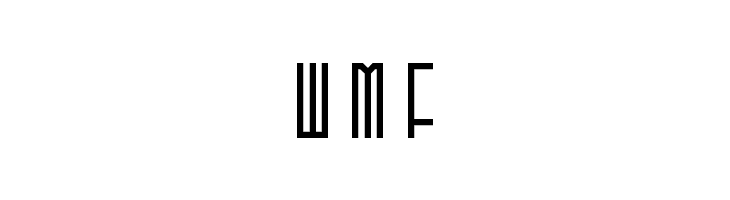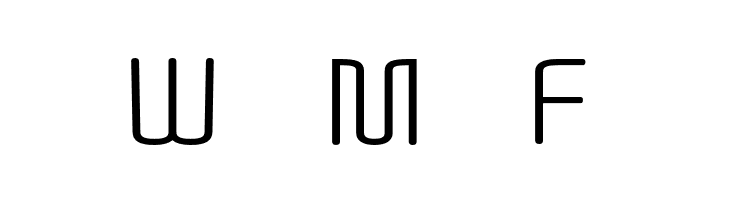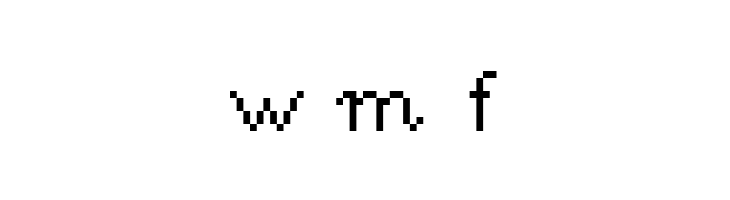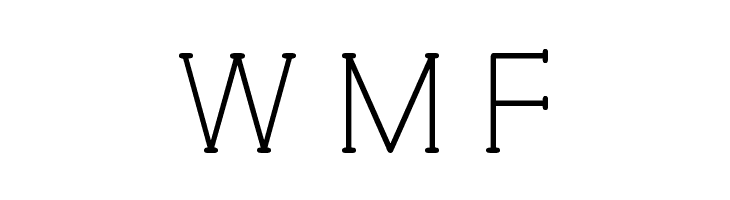
( Luc Mahler )
A modern, monospaced font with a sleek, minimalistic design.
( NewMoleFont )
A pixelated, monospaced font with a retro digital style.
( Pierre-Henri Ramboz - matoilnet.com )
A modern, rounded font with a geometric and monospaced appearance.
( PutraCetol Studio - Putra Novembria Candra Kusuma - creativemarket.com/putracetol )
A geometric, monospaced font with a modern, digital look.
( Qkila - Quentin Aquila - www.creativefabrica.com/designer/qkila/ )
A geometric, monospaced font with rounded edges and consistent line thickness.
( Regina Quesada - reginaqr.blogspot.com )
A geometric, monospaced font with clean lines and uniform character width.
( Ryan Williamson )
A modern, geometric font with a clean, monospaced appearance.
( RynnieJinYeon )
A pixelated, monospaced font with a retro digital aesthetic.
( Sean Bartlett - www.bartlettdigital.com )
A geometric, monospaced font with a modern, technical style.
( Southype - Rodrigo Gonzalez - www.southype.com )
A modern, geometric font with a monospaced appearance and consistent stroke width.